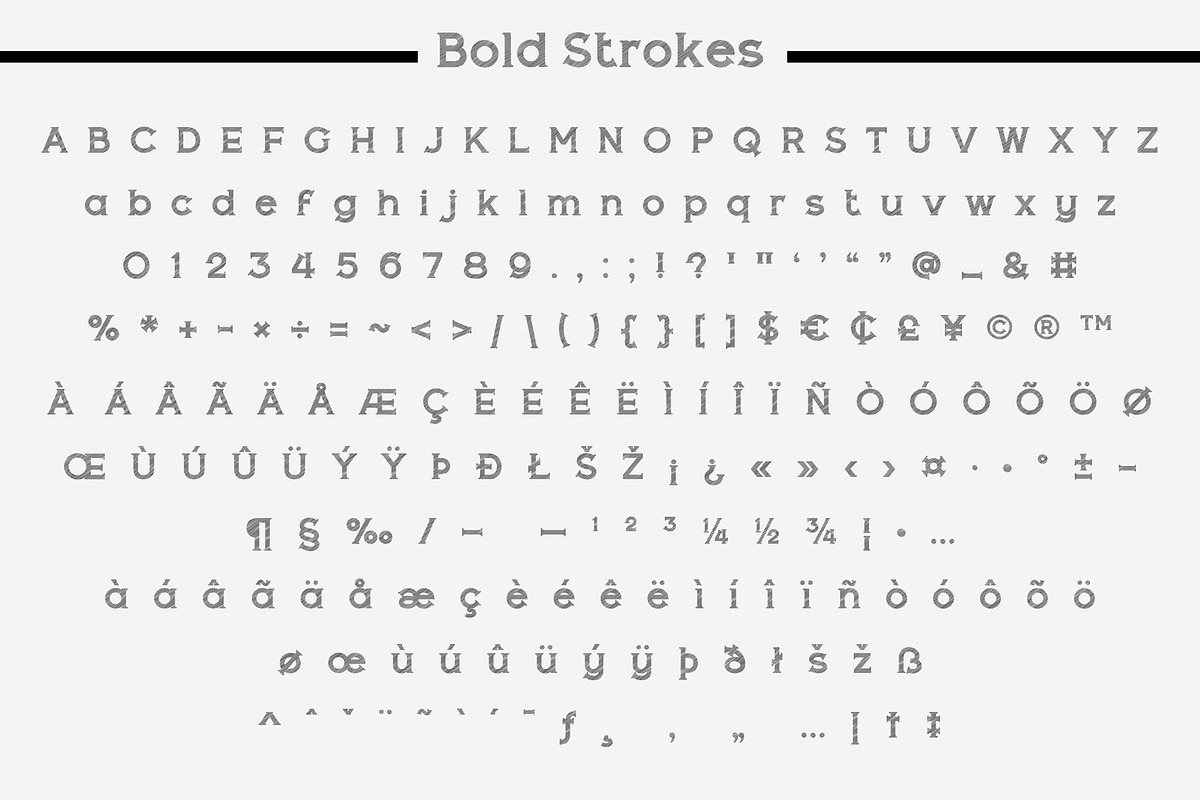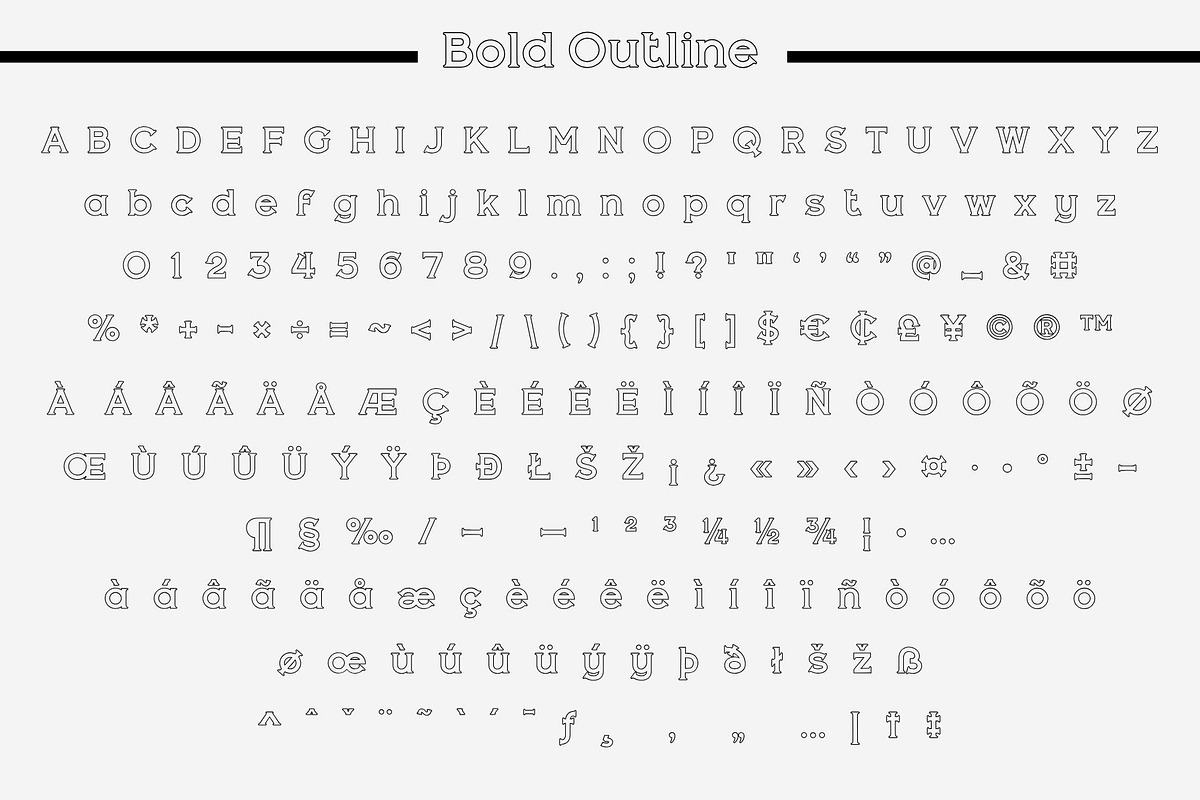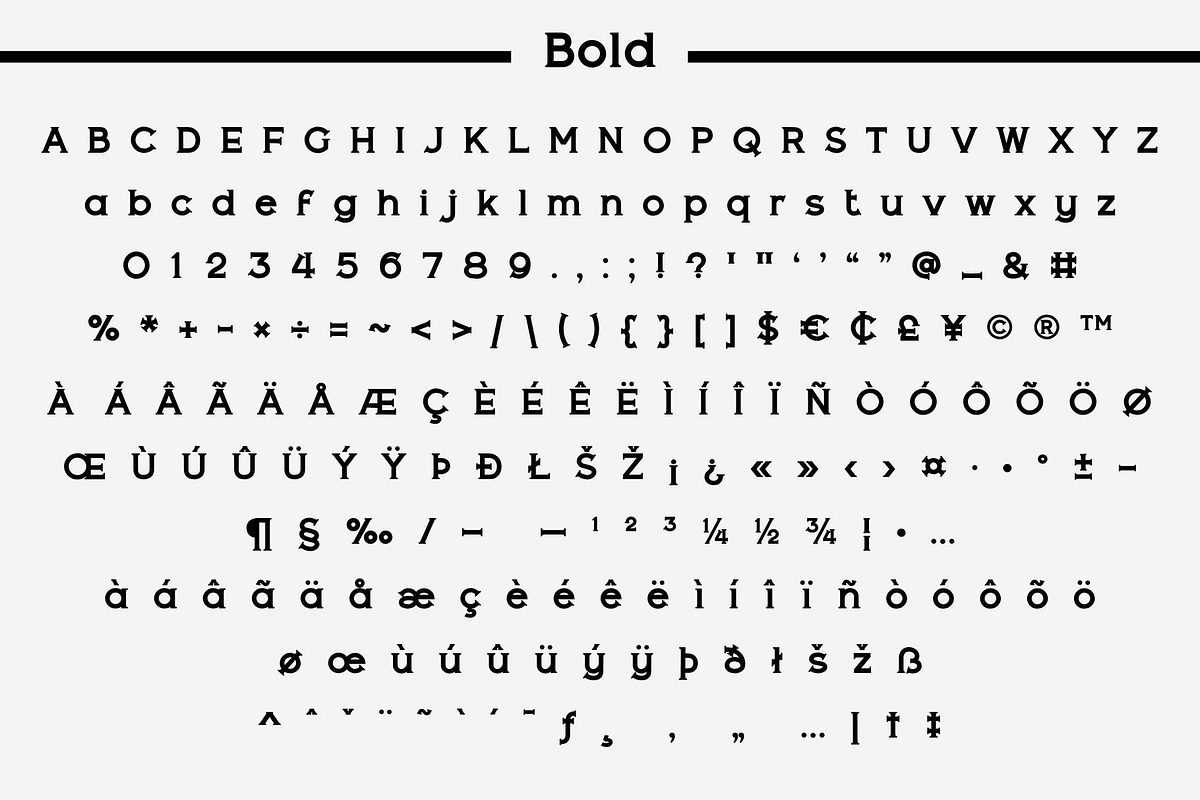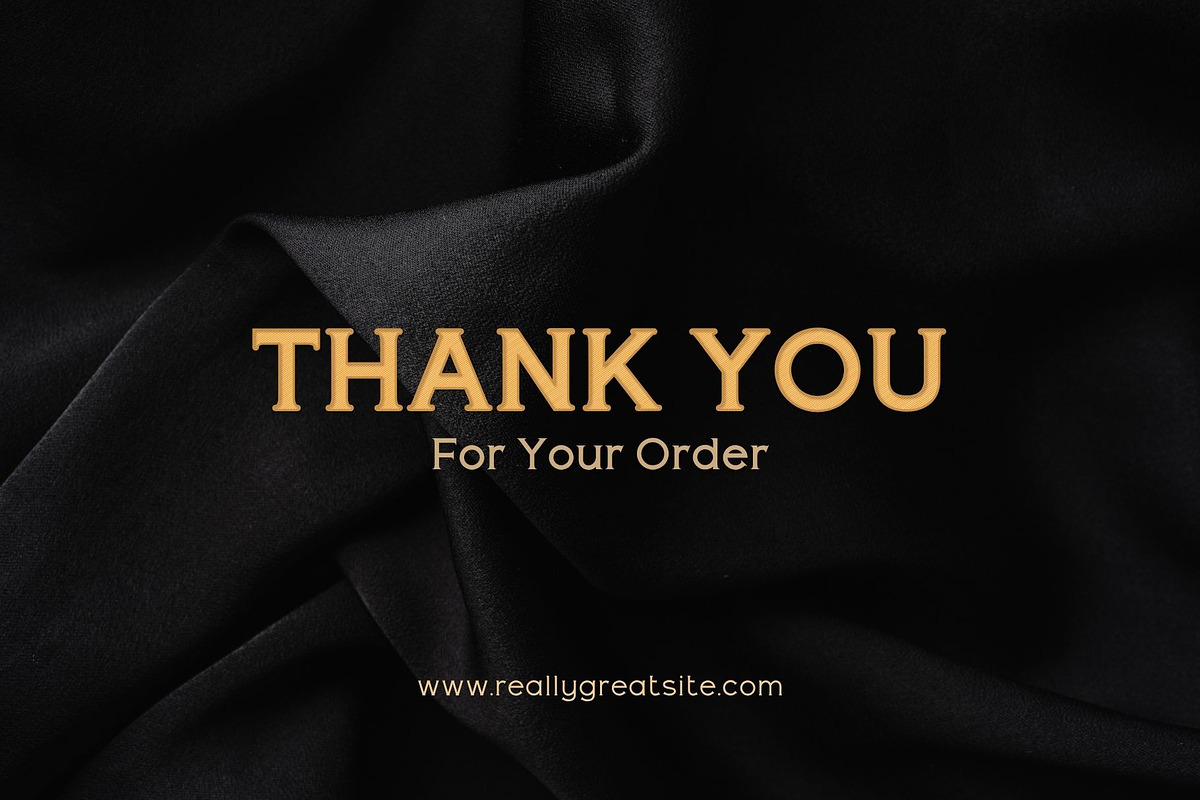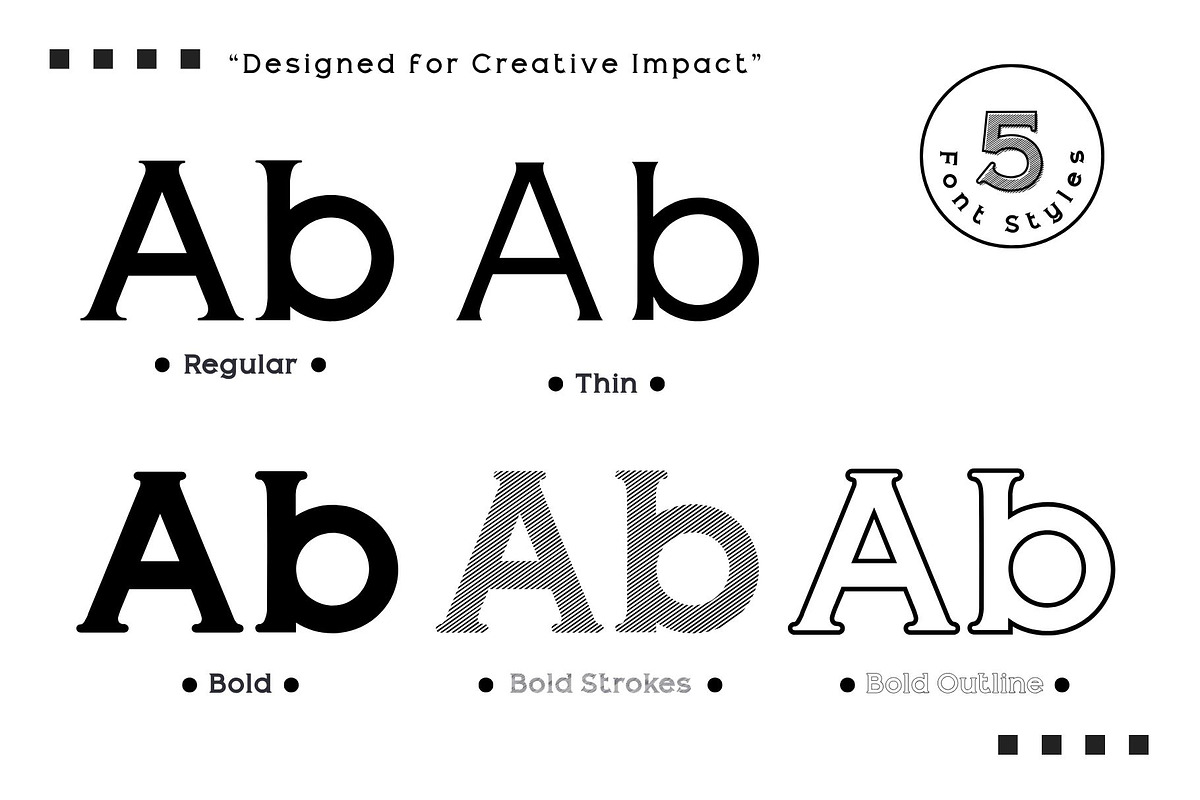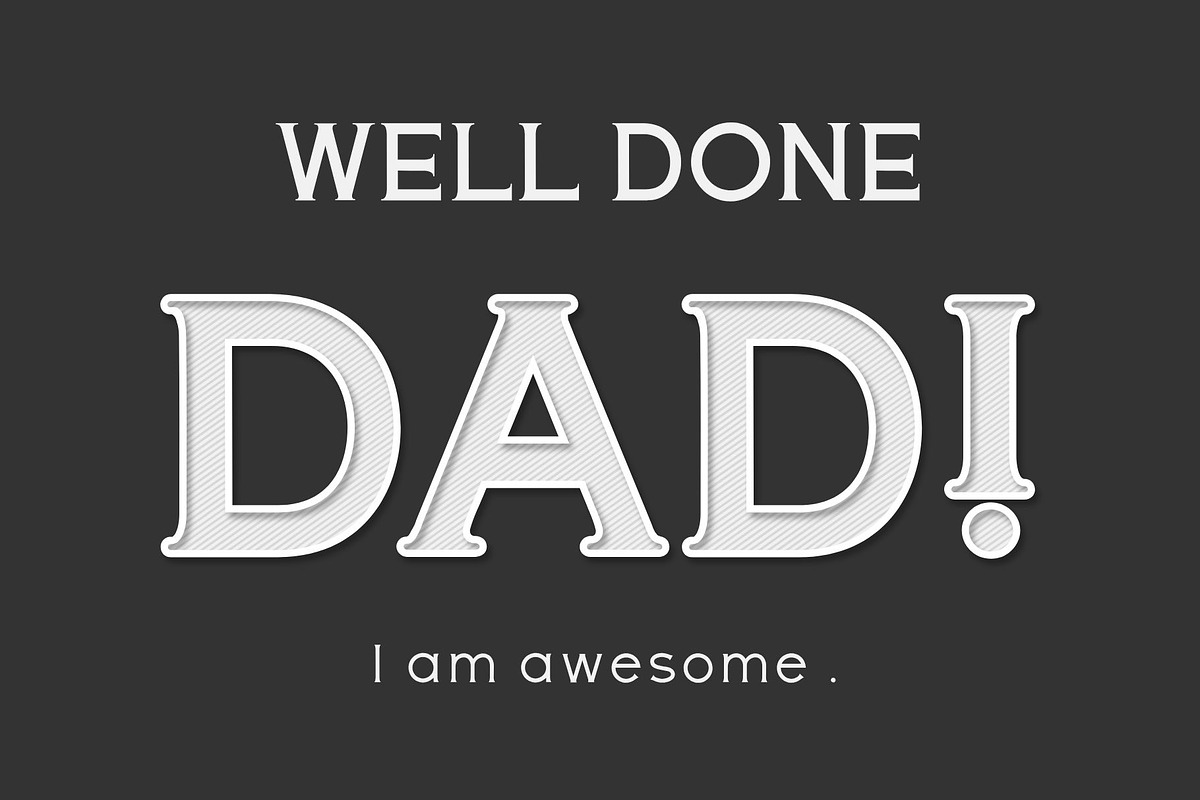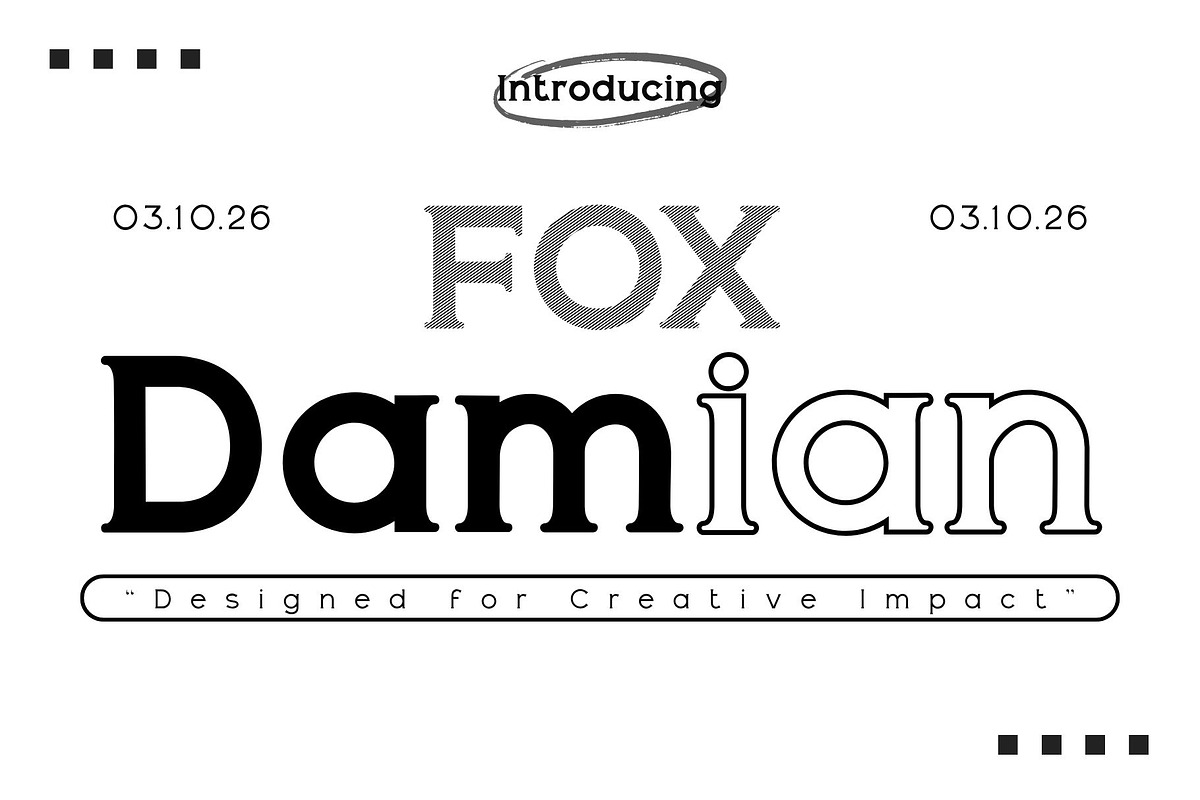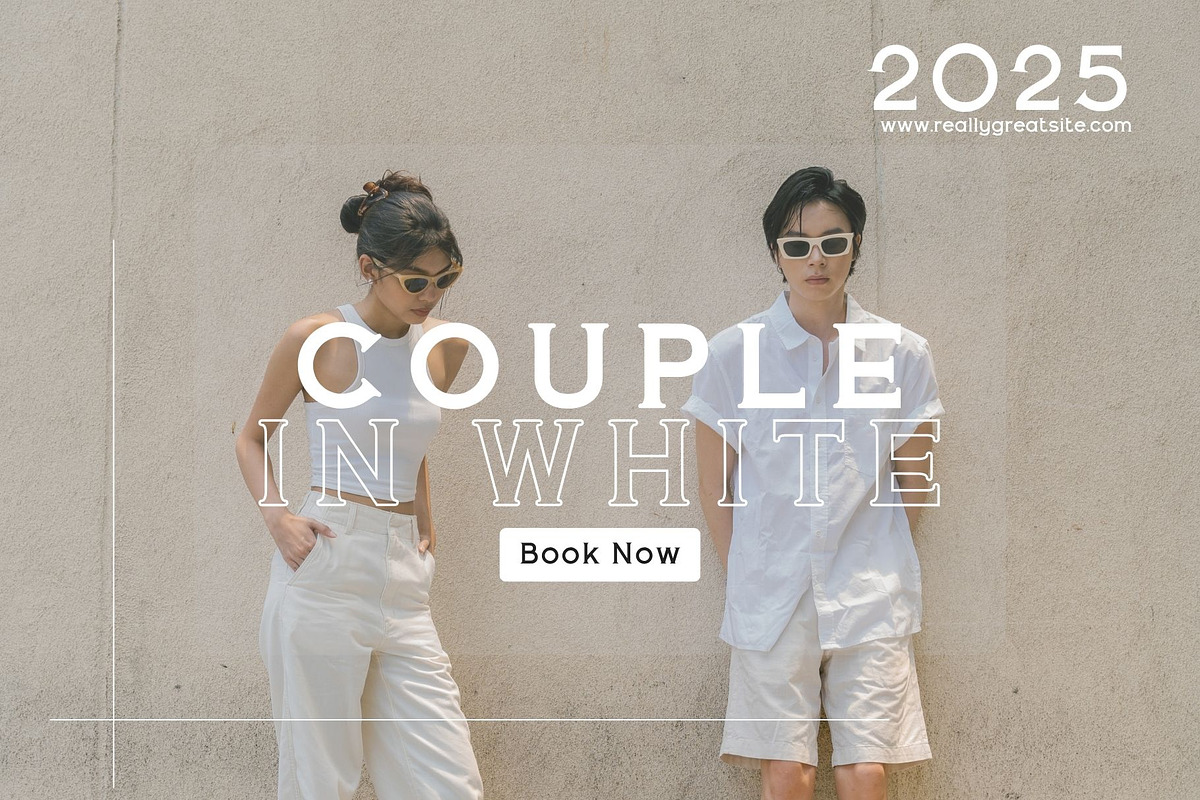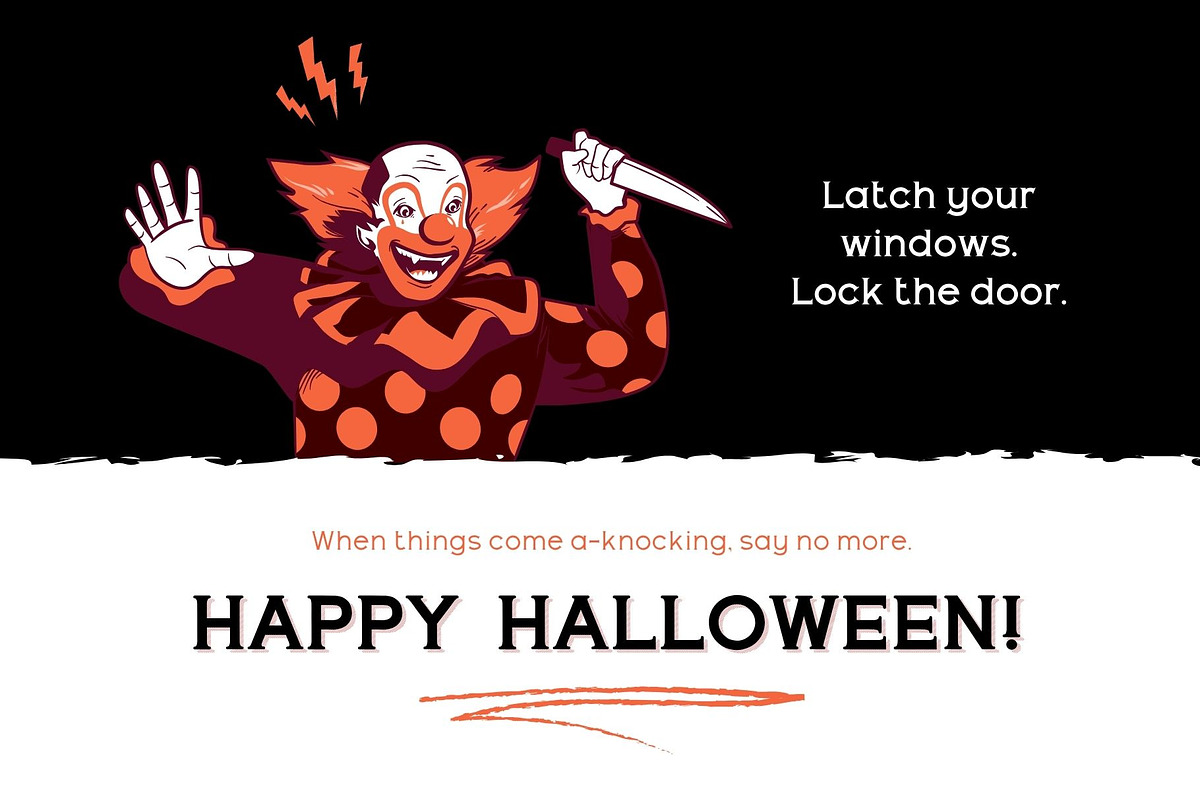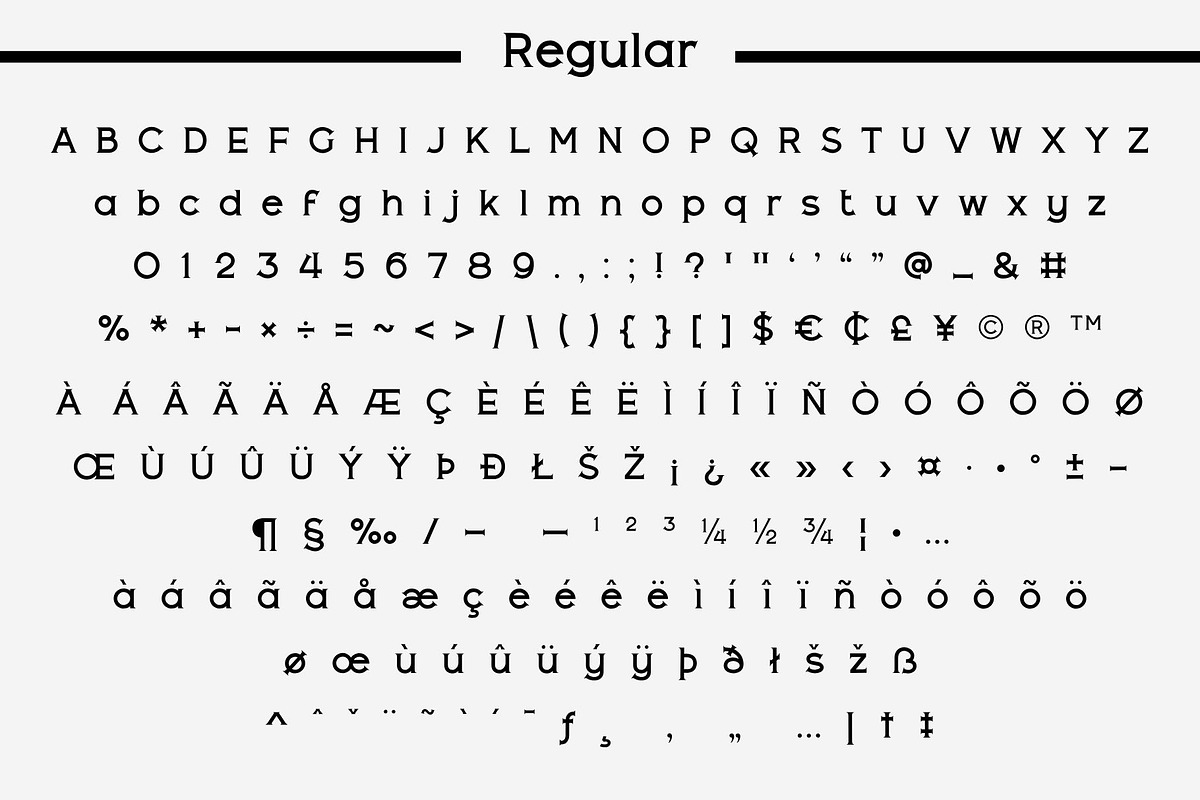
Fox Damian: 5 Font Styles
Fox Damian is a bold and versatile display font family crafted to make your designs stand out with confidence. Featuring 5 unique styles—Regular, Thin, Bold, Bold Strokes, and Bold Outline—this font offers endless creative possibilities for both digital and print projects.
Its modern yet playful letterforms combine strong geometric shapes with smooth curves, giving it a distinctive personality that works beautifully in logos, posters, packaging, headlines, social media graphics, and branding projects.
With its variety of weights and decorative outlines, Fox Damian allows you to experiment with layering, contrast, and hierarchy, making your text visually striking and memorable.
Perfect for designers, entrepreneurs, and creatives looking for a font that balances modern impact with creative charm.